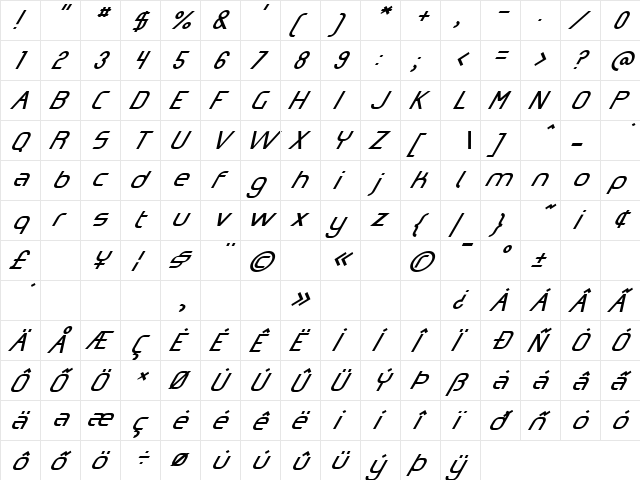
Omicron Zeta Slant Regular
Design Context for Omicron Zeta Slant Typeface
Omicron Zeta Slant offers clean, dependable letterforms without strong stylistic allegiance, making it a practical choice for designers who need flexibility.